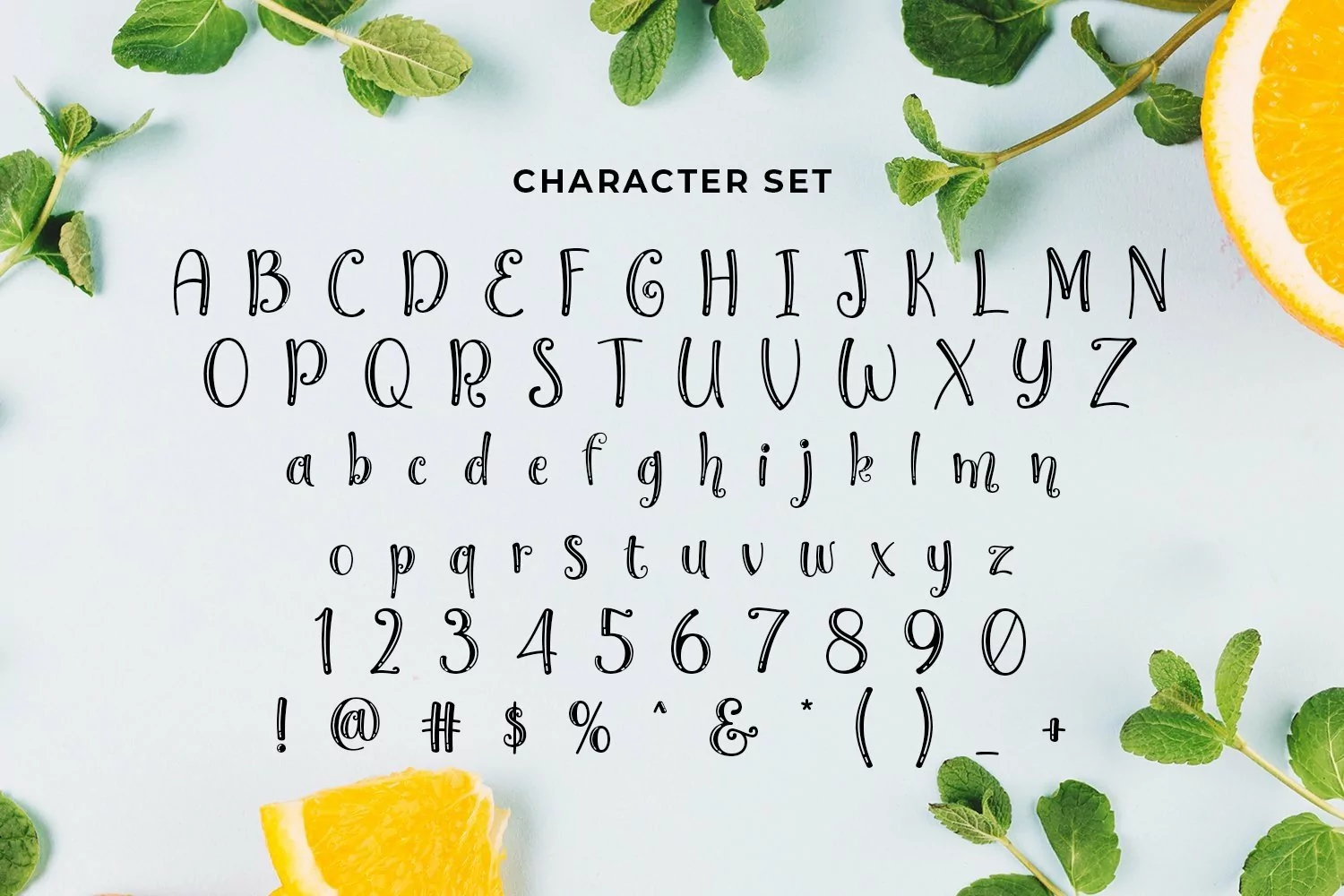
Web Font Justmint
Justmint is a fancy display typeface. Perfect for display, event, logo, business card, quotes, name card, poster, branding, merchandise, packaging, and many more.